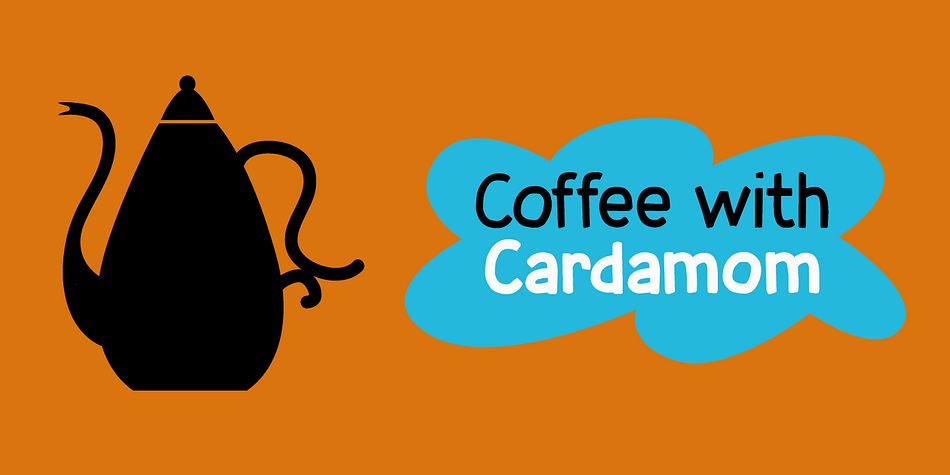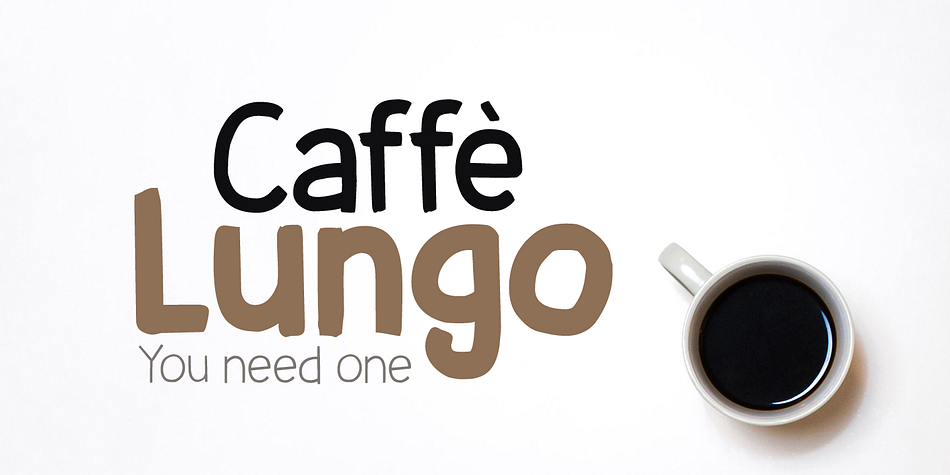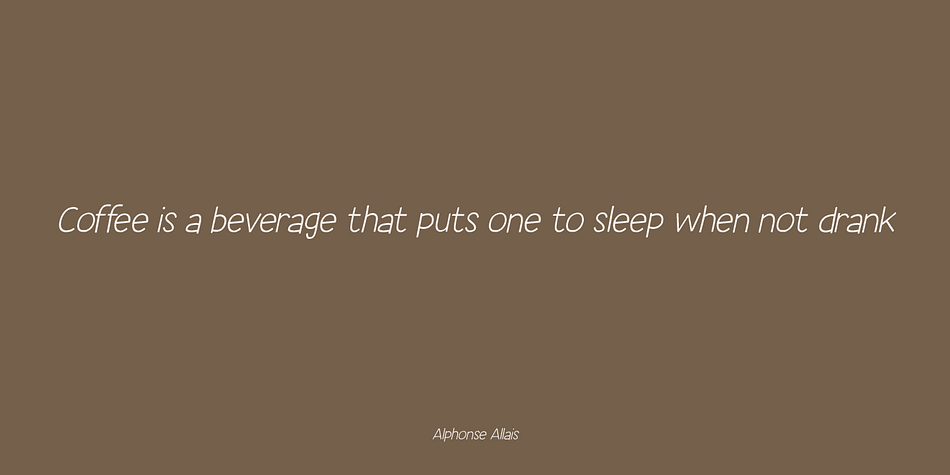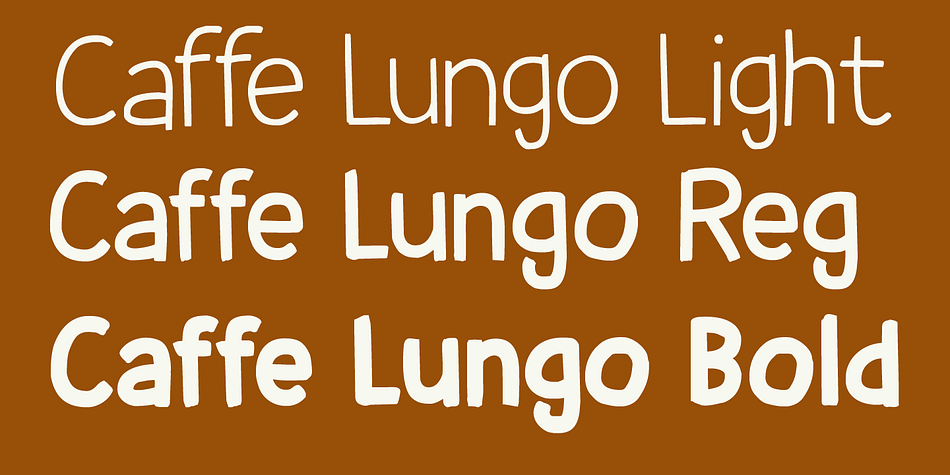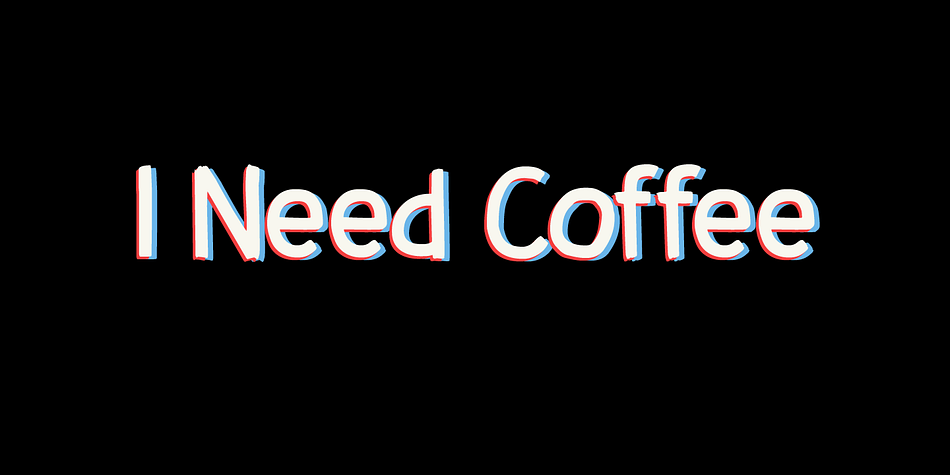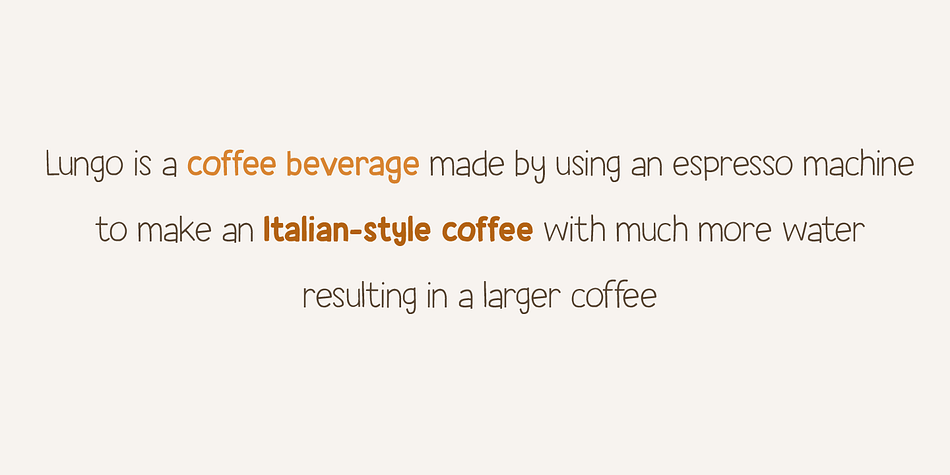
Designed by David Kerkhoff, Caffe Lungo is a hand drawn and kids font family. This typeface has six styles and was published by Hanoded.
Caffe Lungo is a beautiful set of handmade fonts. Lungo is very legible, very clear, but has that authentic ‘handmade’ look.
I wanted to call this font Caffe Latte, or Caffe Espresso, but those names were already taken, so I settled for Caffe Lungo.
Caffe Lungo comes in three weights, each with its own Italic style. I also added ligatures for the g_j and j_j letter combinations.